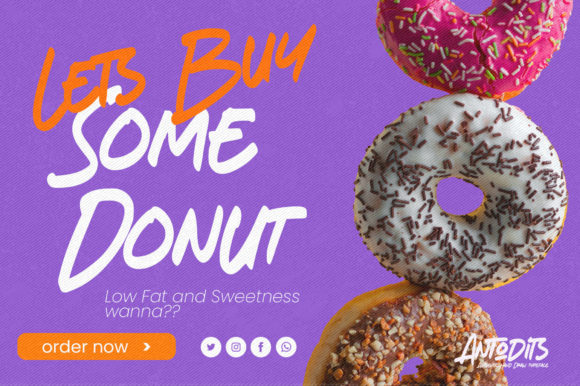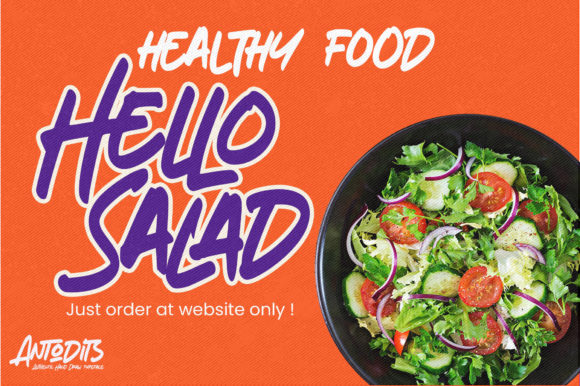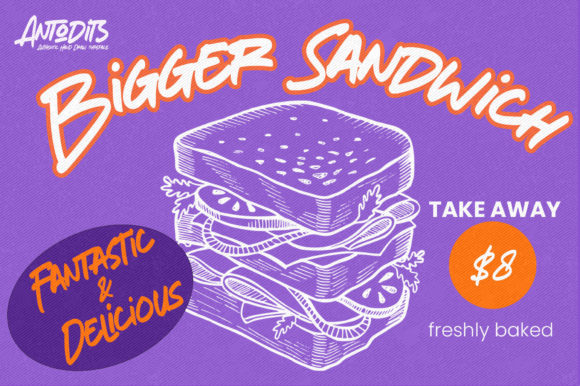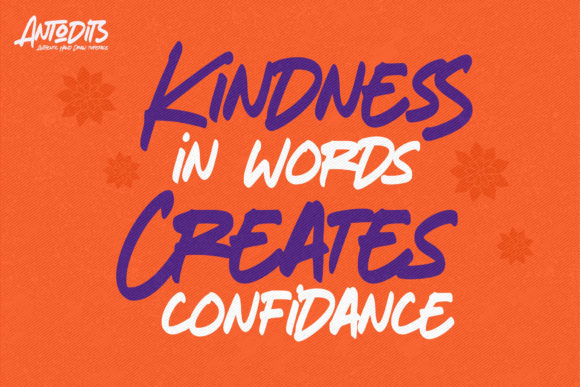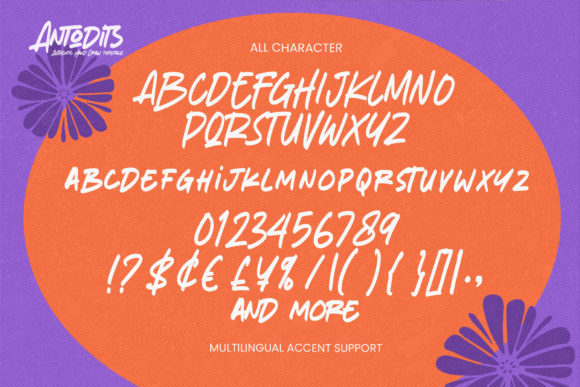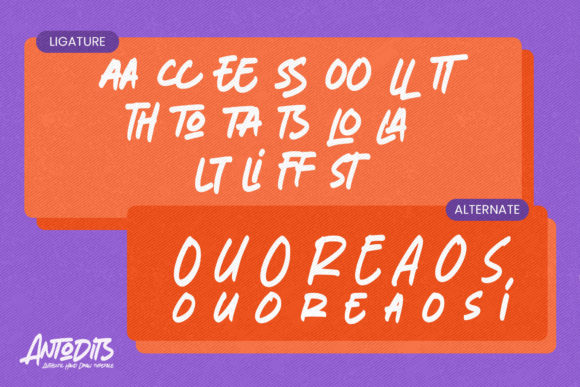
Introducing Antodits Font: Elevate Your Designs with Elegance and Sophistication
Are you tired of using generic fonts that fail to make your designs stand out? Look no further than Antodits Font, an authentic handwritten font that exudes class and sophistication. With its lovely signature style and classy characters, Antodits is the perfect addition to any creative project. In this article, we’ll dive into the features and benefits of Antodits Font, and explore how it can elevate your designs to the next level.
What is Antodits Font?
Antodits Font is a beautifully crafted handwritten font that boasts a unique and elegant signature style. Its classy characters and flowing lines make it perfect for a wide range of creative projects, from watermarks and logos to invitations and product packaging. Whether you’re a designer, crafty DIY enthusiast, or simply someone who loves to get creative, Antodits Font is sure to inspire.
Key Features of Antodits Font
- Authentic Handwritten Style: Antodits Font features an authentic handwritten style that adds a personal touch to any design.
- Classy Characters: The font’s classy characters are perfect for creating elegant and sophisticated designs.
- Lovely Signature Style: The font’s signature style is perfect for adding a touch of elegance to any design.
- PUA Encoded: Antodits Font is PUA encoded, making it easy to access all the glyphs and swashes.
- Versatile: The font is perfect for a wide range of creative projects, from watermarks and logos to invitations and product packaging.
What Can I Use Antodits Font For?
Antodits Font is incredibly versatile and can be used for a wide range of creative projects, including:
- Watermarks: Add a touch of elegance to your photos with Antodits Font.
- Logos & Branding: Create a lasting impression with Antodits Font’s classy characters and signature style.
- Invitations: Make your invitations stand out with Antodits Font’s lovely handwritten style.
- Advertisements: Grab attention with Antodits Font’s elegant and sophisticated style.
- Product Designs: Add a personal touch to your product designs with Antodits Font.
- Stationery: Elevate your stationery with Antodits Font’s classy characters and signature style.
- Wedding Designs: Make your wedding designs unforgettable with Antodits Font.
- Labels & Product Packaging: Stand out on store shelves with Antodits Font’s unique and elegant style.
- Special Events: Make your special events unforgettable with Antodits Font.
Why Choose Antodits Font?
With so many fonts available, why choose Antodits Font? Here are just a few reasons:
- Unique Style: Antodits Font boasts a unique and elegant handwritten style that will make your designs stand out.
- Ease of Use: The font is PUA encoded, making it easy to access all the glyphs and swashes.
- Versatility: Antodits Font is perfect for a wide range of creative projects.
- High-Quality: The font is high-quality and perfect for professional designs.
In conclusion, Antodits Font is a beautifully crafted handwritten font that is perfect for designers, crafty DIY enthusiasts, and anyone who loves to get creative. With its lovely signature style, classy characters, and PUA encoding, Antodits Font is sure to elevate your designs to the next level. Whether you’re looking to create watermarks, logos, invitations, or product packaging, Antodits Font is the perfect choice. So why wait? Download Antodits Font today and start creating stunning designs that will leave a lasting impression!